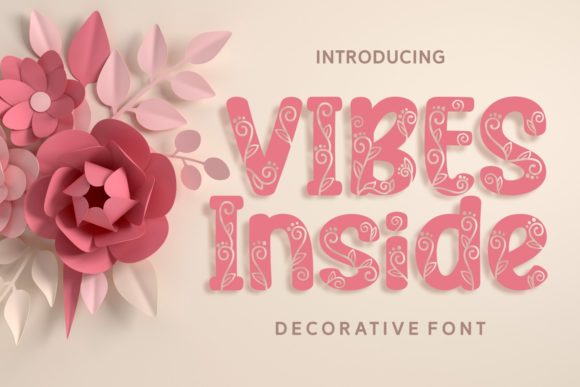
Meet "Vibes Inside," the decorative font family with an artistic flair, crafted by the renowned Creative Fabrica Fonts. Inspired by the beauty of nature, Vibes Inside is an exquisite display font that captures the essence of intricate floral swirls, transforming your designs into captivating creations.
Whether you're a crafter, designer, or creative visionary, Vibes Inside is the perfect font to infuse your projects with a touch of elegance and charm. Its delicate lines and enchanting patterns evoke a sense of warmth and joy, adding a personal touch to every creation.
Unleash Your Creativity with Vibes Inside:
- Express Your Love and Gratitude: Create heartfelt Valentine's Day and Mother's Day cards, invitations, and banners with Vibes Inside's charming aesthetic. Its intricate patterns add a unique touch of affection to your expressions of love and appreciation.
- Bring Projects to Life: Engage your audience with captivating social media posts, eye-catching logos, and website designs using Vibes Inside. Its decorative elements infuse life into your visual content, attracting attention and leaving a lasting impression.
- Craft Unique Packaging: Elevate your products with custom packaging adorned with Vibes Inside's delicate patterns. Create labels, tags, and boxes that reflect your brand's unique character, ensuring your products stand out on shelves and in the hearts of your customers.
Key Features of Vibes Inside:
- Unmatched Beauty: Each character in Vibes Inside is adorned with a unique floral pattern, adding an artistic touch to your designs.
- Versatile Application: This font is perfectly suited for a variety of projects, from heartfelt cards and invitations to professional logos and website designs.
- Unleash Your Creativity: With Vibes Inside, let your imagination run wild as you discover endless possibilities for expressing your creativity.
Why Choose Vibes Inside?
Vibes Inside is more than just a font; it's an expression of your creativity, a reflection of your unique style. Its intricate patterns and graceful lines captivate the eyes, leaving a lasting impression on your audience.
With Vibes Inside, you'll not only create visually stunning designs but also convey a sense of warmth, love, and appreciation. Its decorative elements add a personal touch to your projects, making them truly special and memorable.